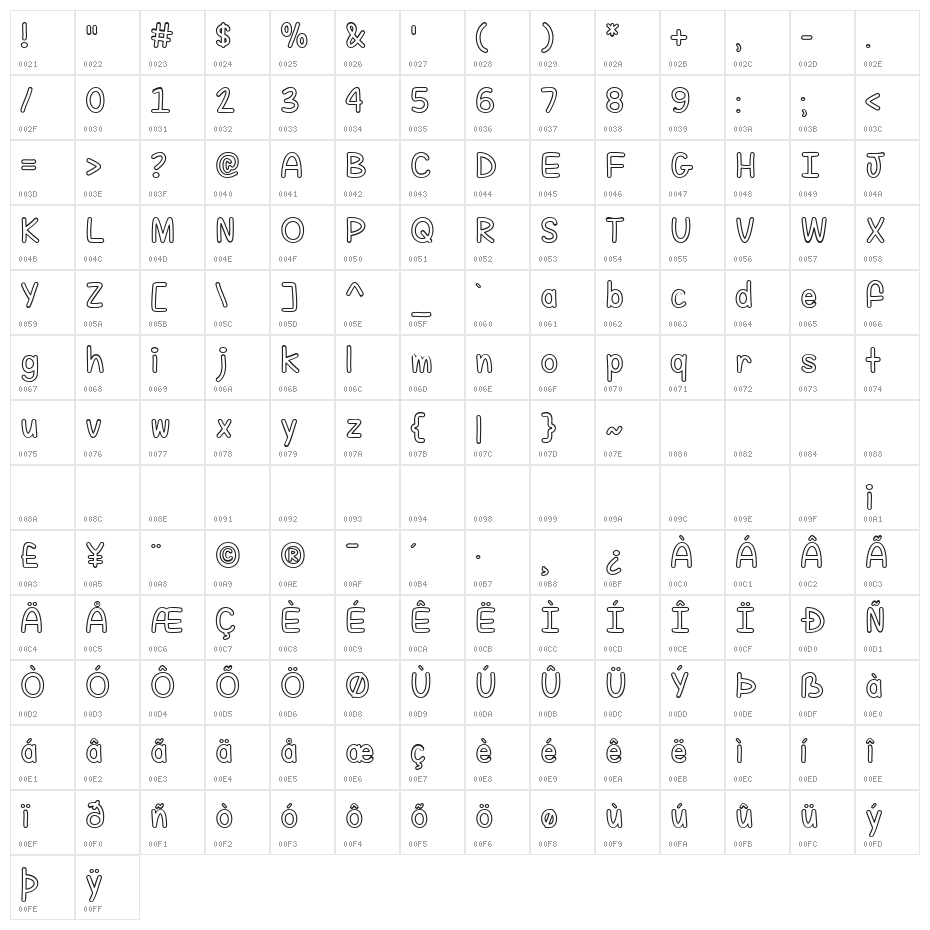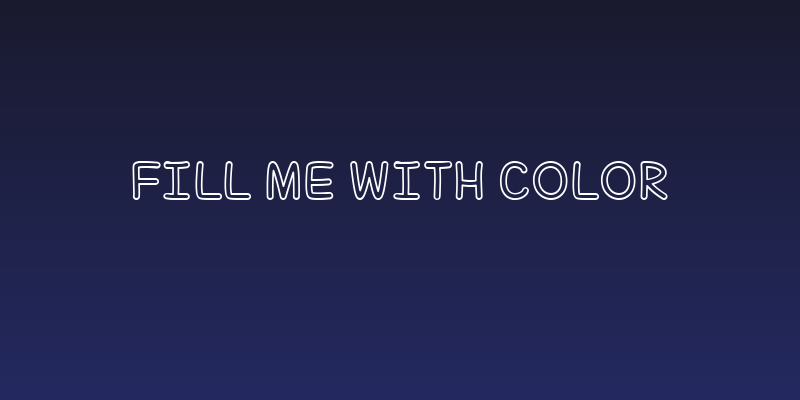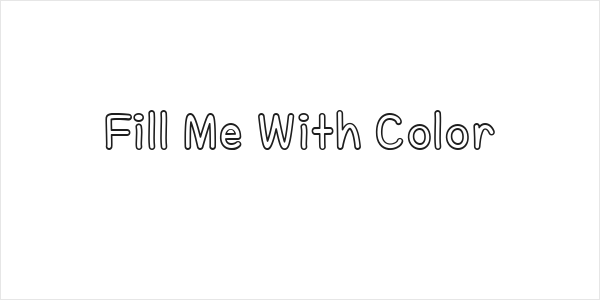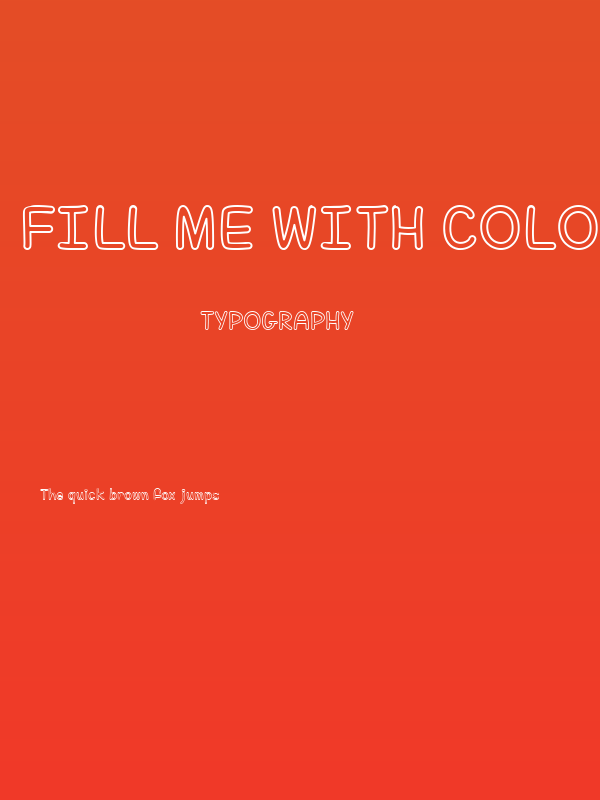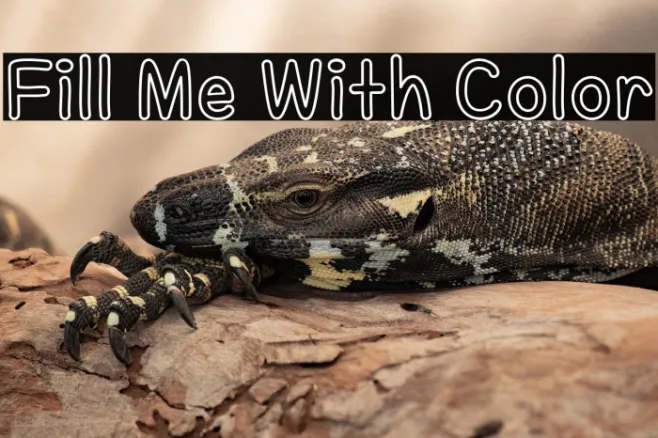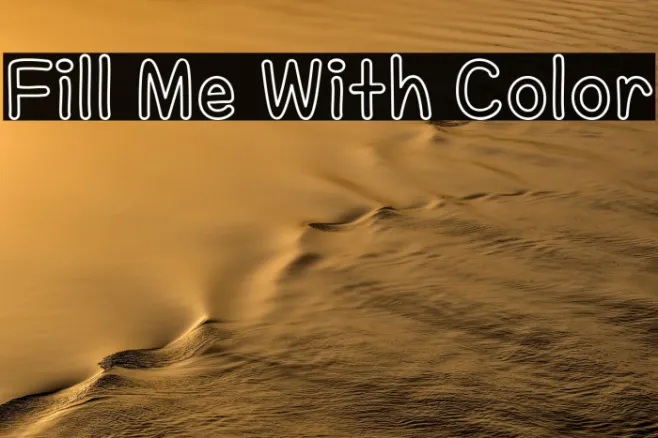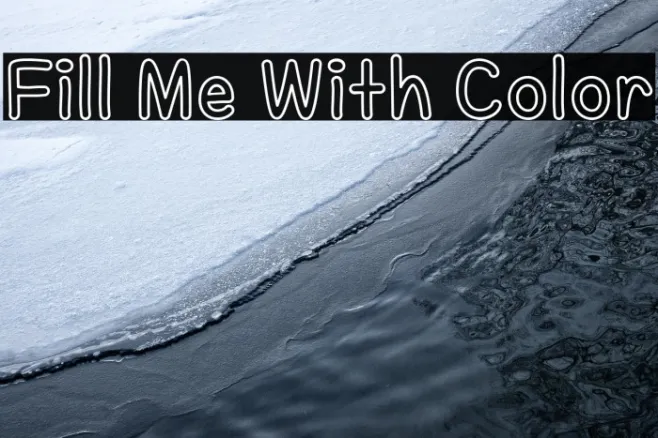
Fill Me With Color Font
Fill Me With Color Description
This playful and inviting font features bold, rounded characters with a hollow interior, giving it a unique outline style. The letters are evenly spaced, maintaining a consistent flow that enhances readability. Its whimsical appearance makes it ideal for projects aimed at children or creative endeavors. The font's design is both approachable and versatile, suitable for a variety of uses where a fun and informal tone is desired. The characters are well-proportioned, with a smooth, flowing line that adds to its charm.
| Proposed Projects | Ideal for children's books, playful branding, posters, and creative invitations. |